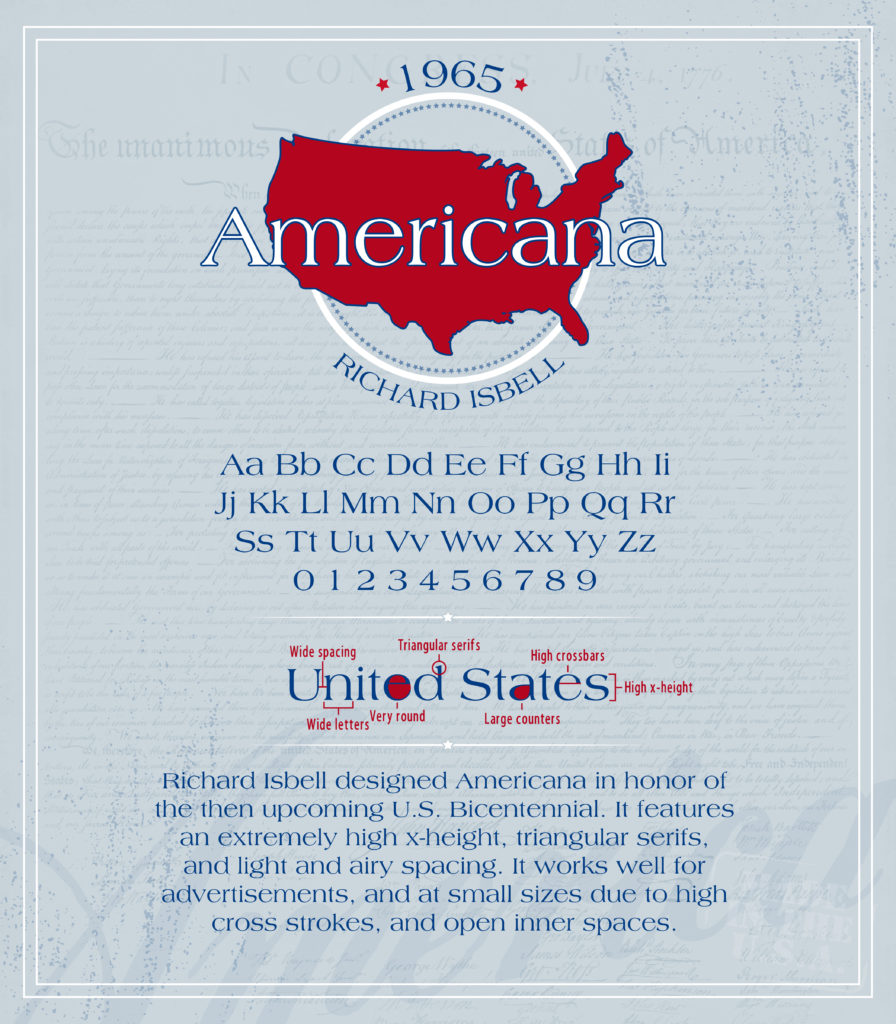
Font of the Week — Americana
Americana was designed by Richard Isbell in 1965 to honor our country’s upcoming bicentennial. With extremely high x-heights, triangular serifs, and airy spacing, Americana is perfect for advertising. Isbell’s creation of such a versatile typeface means Americana works great for not only large print needs, but small as well.